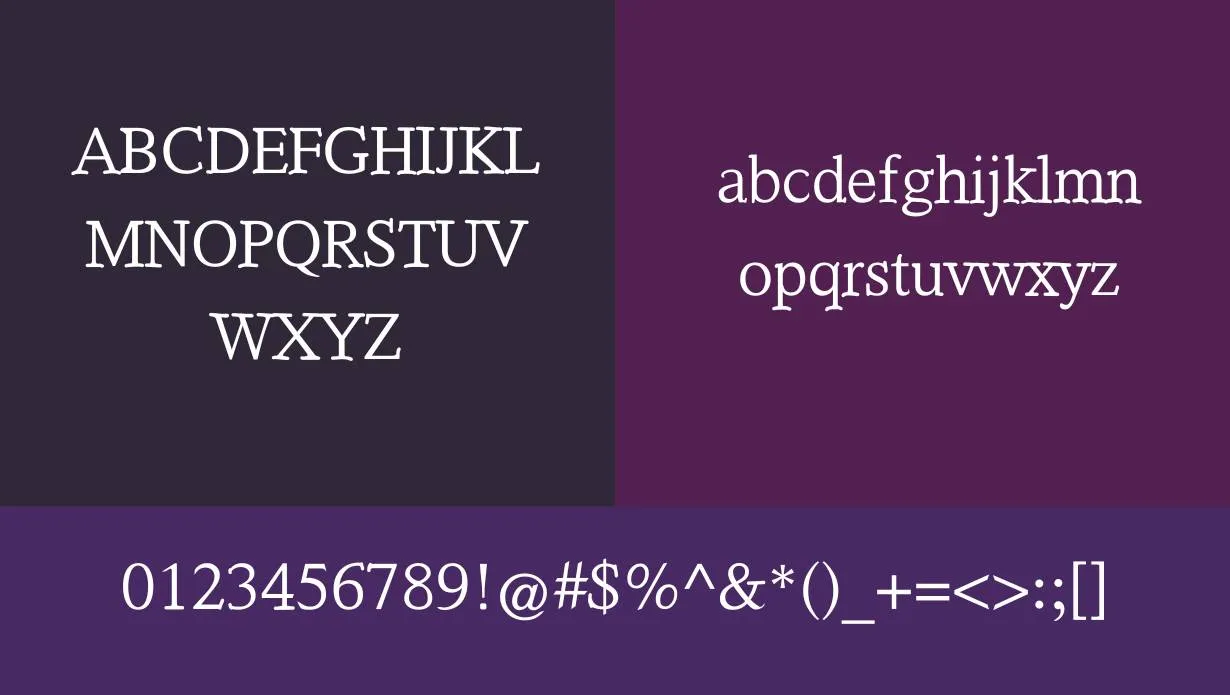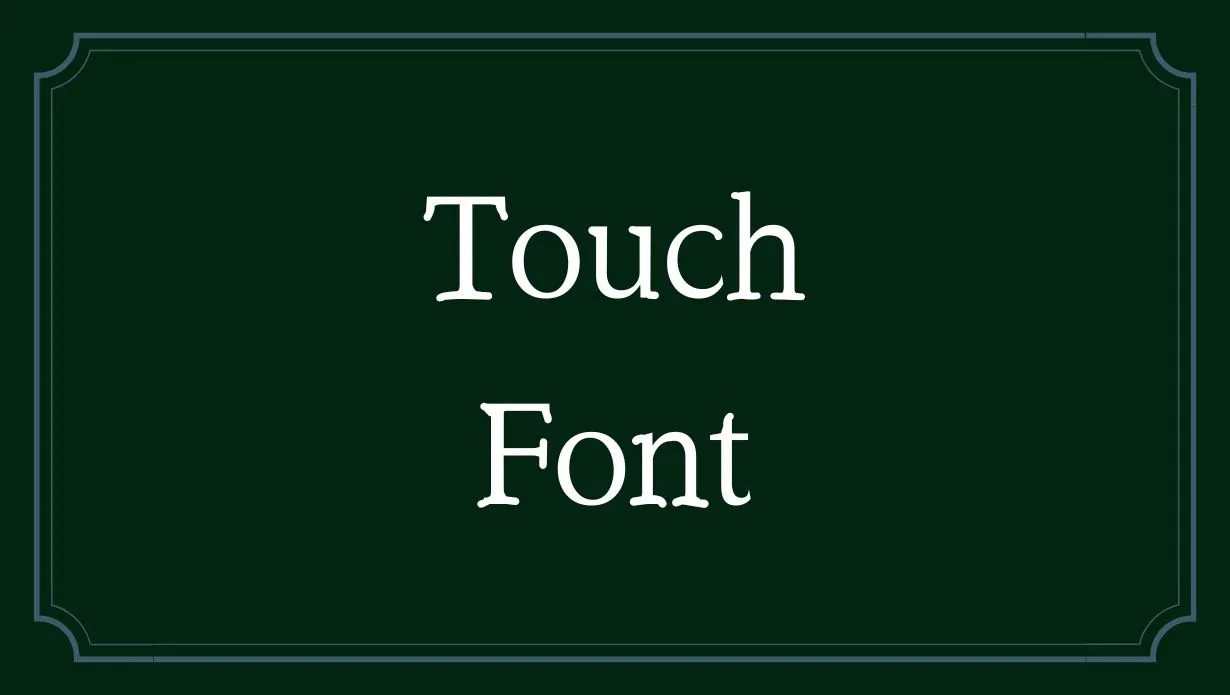
About Touch Font
Touch Font is a contemporary typeface designed by Leo Gao that masterfully bridges tactile sensation and digital clarity. Its gentle, rounded letterforms evoke a sense of physical touch and approachability, while maintaining excellent on-screen legibility. Crafted with versatile weights and subtle organic details, it is ideal for user interfaces, branding, and any project requiring both warmth and modern precision. The font creates an immersive, human-centric experience, making digital interactions feel more intuitive and engaging.